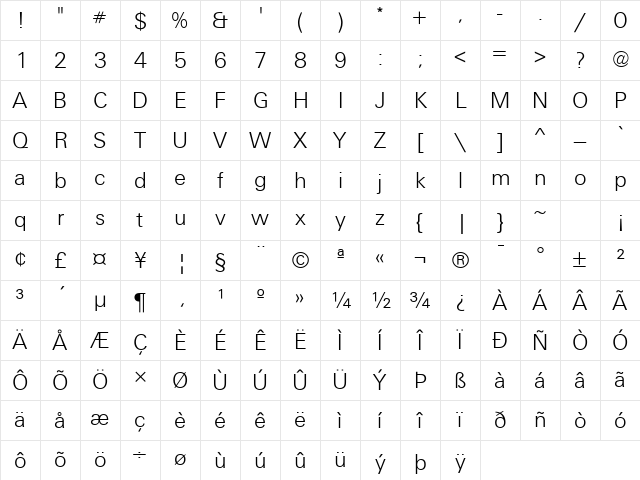
Unique Light Regular
Design Context for Unique Light
Unique Light is a composed and adaptable typeface that performs quietly and consistently across a wide range of design contexts. Its slender proportions lend an understated elegance to any composition.